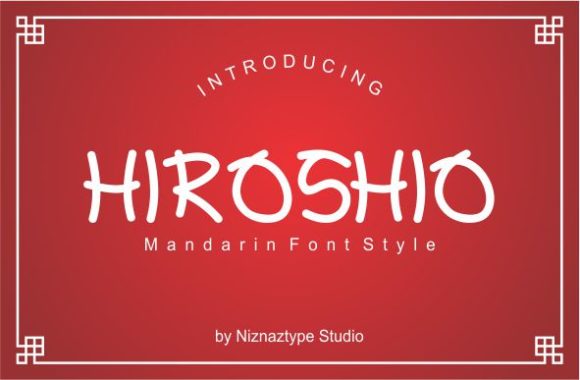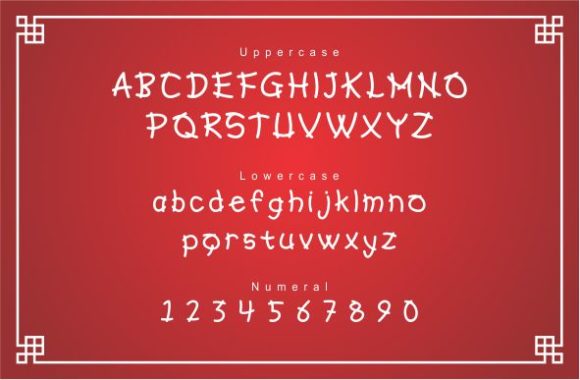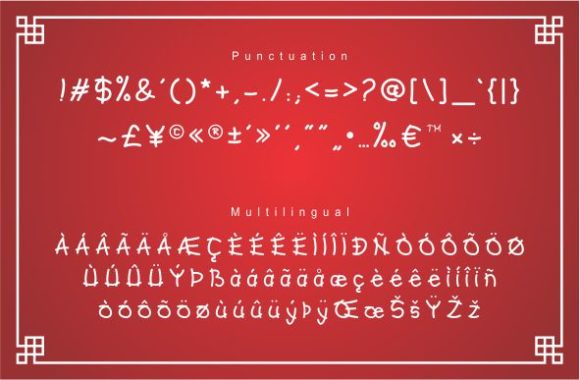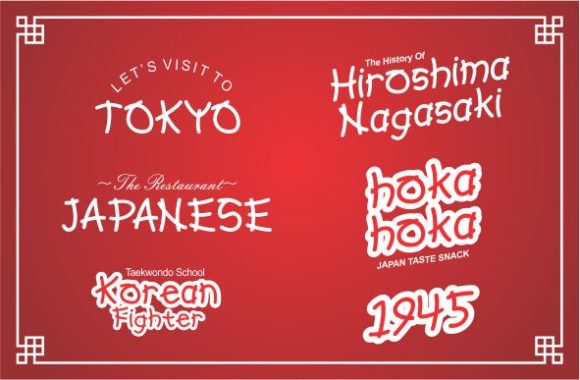
Hiroshio: A Versatile Slab Serif Font with Asian Character Support
Hiroshio is a distinctive slab serif font that stands out for its unique ability to support both Latin and Asian character sets. This versatile typeface offers designers a powerful tool for creating impactful typography across multiple languages and cultural contexts.
Key Features of Hiroshio
- Multilingual Support: Suitable for designs including Mandarin, Chinese, or Japanese characters
- Slab Serif Design: Features the characteristic thick, rectangular serifs of slab serif fonts
- Standout Quality: Designed to make new projects stand out
- Versatile Application: Suitable for various design projects requiring a cross-cultural appeal
Ideal Uses for Hiroshio
Hiroshio’s unique characteristics make it particularly well-suited for:
- Multilingual branding and logo design
- Cross-cultural marketing materials
- Asian-inspired or fusion restaurant menus
- International event posters and signage
- Bilingual or multilingual publications
Comparison with Other Slab Serif Fonts
While Hiroshio shares characteristics with other slab serifs like Tecnica Slab Family, its support for Asian characters sets it apart. Unlike more traditional slab serifs such as Osgood Slab, Hiroshio offers a unique blend of Western and Eastern typographic traditions.
When incorporating Hiroshio into your designs, consider the following tips:
- Utilize its multilingual capabilities for projects targeting diverse audiences
- Experiment with mixing Latin and Asian characters for unique typographic compositions
- Consider using it in projects where you want to convey a global or cross-cultural message
- Pair with simpler sans-serif fonts for body text to create contrast
Hiroshio is an excellent choice for designers looking to add a versatile and culturally inclusive slab serif to their typographic toolkit. Its unique ability to support both Latin and Asian characters makes it stand out in the world of typography. Whether you’re working on logo designs, creating eye-catching poster designs, or developing branding for international projects, Hiroshio offers the perfect blend of slab serif boldness and multicultural flexibility.
Explore how Hiroshio can bring a global perspective to your design projects. From multilingual branding to cross-cultural marketing materials, this font provides the tools to create impactful and inclusive typography that resonates across different languages and cultures.